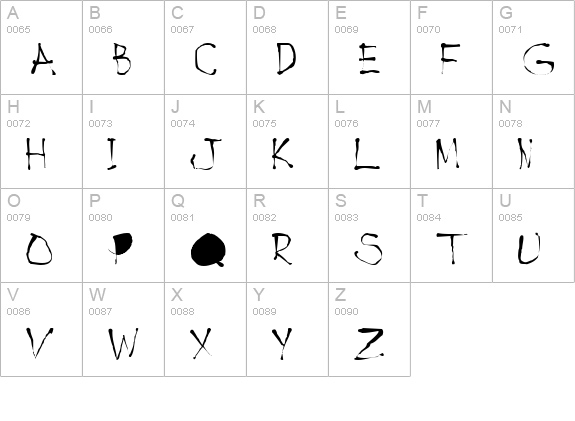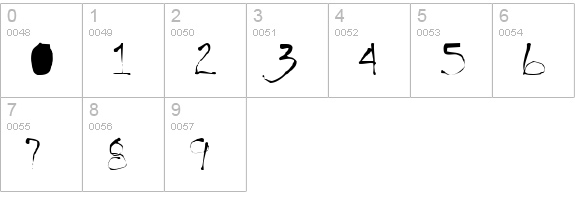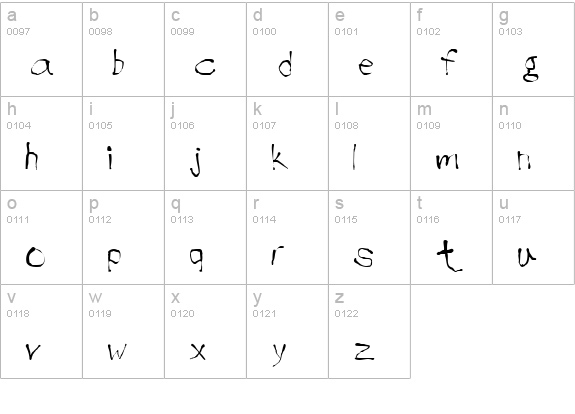
Handwrite Regular is the standard, neutral variant in the Handwrite typeface family \xE2\x80\x94 well suited to general body text, paragraphs, and standard typographic work.
Handwrite Regular font is a delightful and versatile typeface that adds a touch of elegance and personality to any project. With its smooth and flowing strokes, this font captures the essence of handwriting, making it perfect for a wide range of applications such as invitations, greeting cards, logos, and more. This font strikes the perfect balance between legibility and style, ensuring that your message is clear and visually appealing. Whether you're designing a wedding invitation, creating a beautiful logo for your business, or simply adding a personal touch to your digital presentations, Handwrite Regular font will bring a unique charm and sophistication to your designs. What's even better is that Handwrite Regular font is free! Yes, you read that right. This stunning font is freely available to download at FontsMarket.com, a trusted source for high-quality and diverse fonts. With just a few clicks, you can enhance your creative projects with this exceptional typeface without spending a dime. Handwrite Regular font offers a wide range of glyphs and character variations, including uppercase and lowercase letters, numerals, punctuation marks, and more. Its versatility allows you to experiment and create one-of-a-kind designs that truly reflect your personal style and vision. With its timeless appeal and effortless elegance, Handwrite Regular font is sure to become a staple in your font collection. So why wait? Discover the beauty and convenience of this amazing font today by downloading it for free at FontsMarket.com. Unleash your creativity and let Handwrite Regular font elevate your designs to new heights.